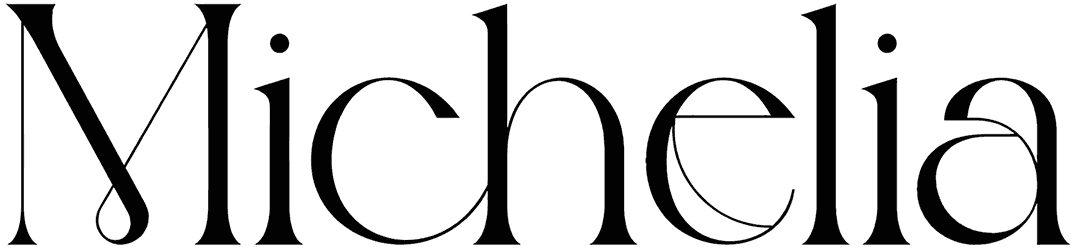
Catalina Rayden Font
If it’s a serif font you are looking for, we’ve got you covered. Catalina Rayden is coming in medium characters and works flawlessly for magazines, books, menus, bag shops, and whatnot. Don’t hesitate and click on the download button like a shot. If you haven’t recently checked RB, do it now and use the other cherry-picked products.
Designed by: UI Creative